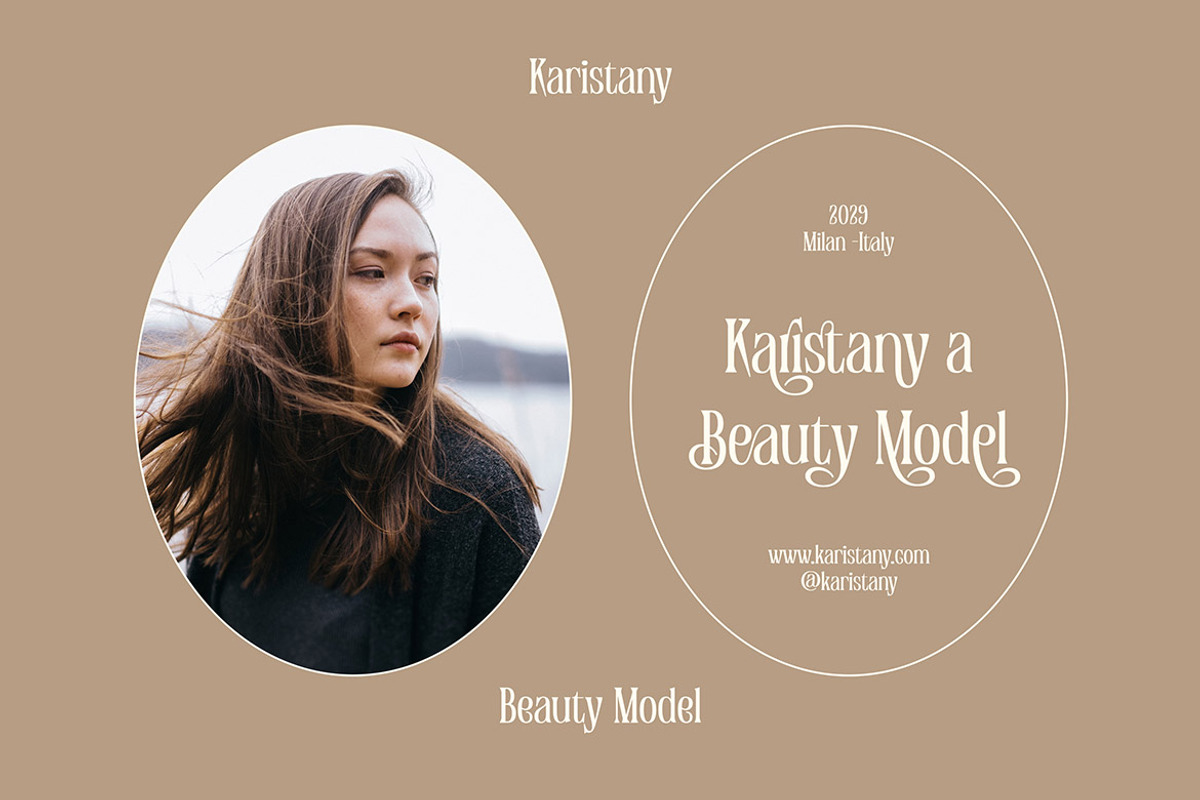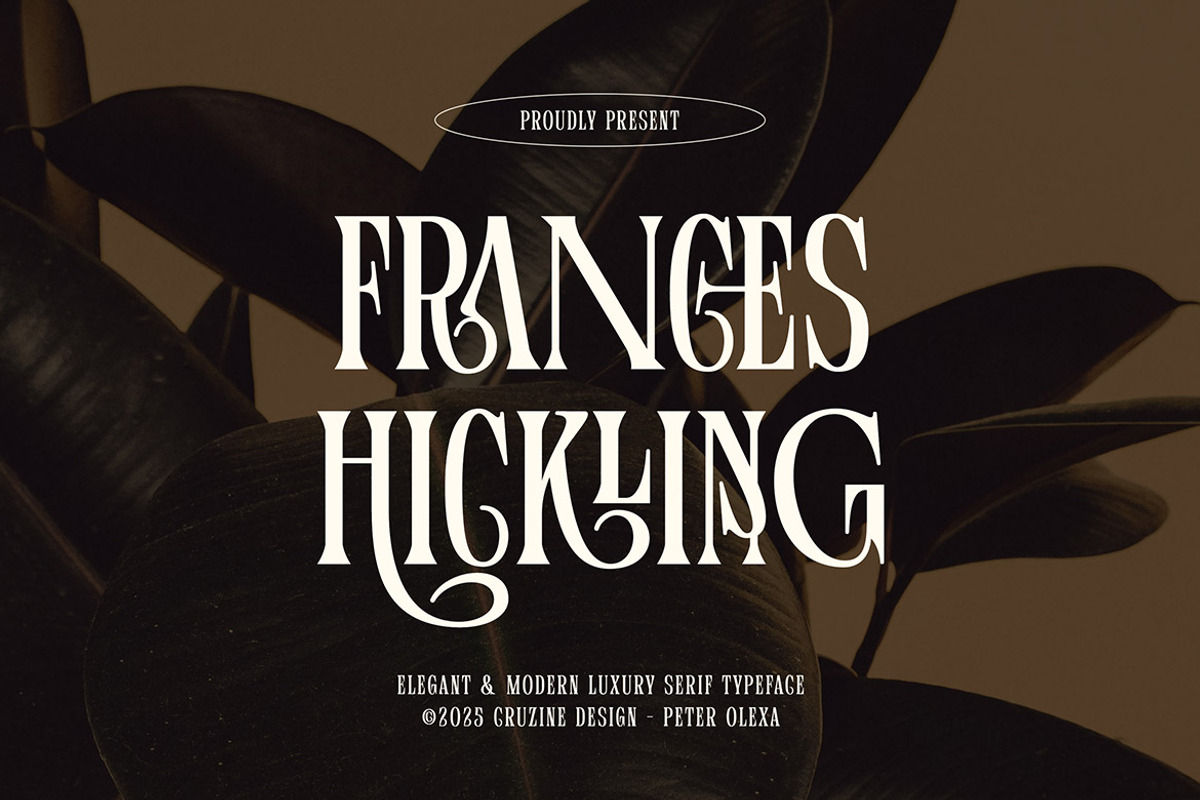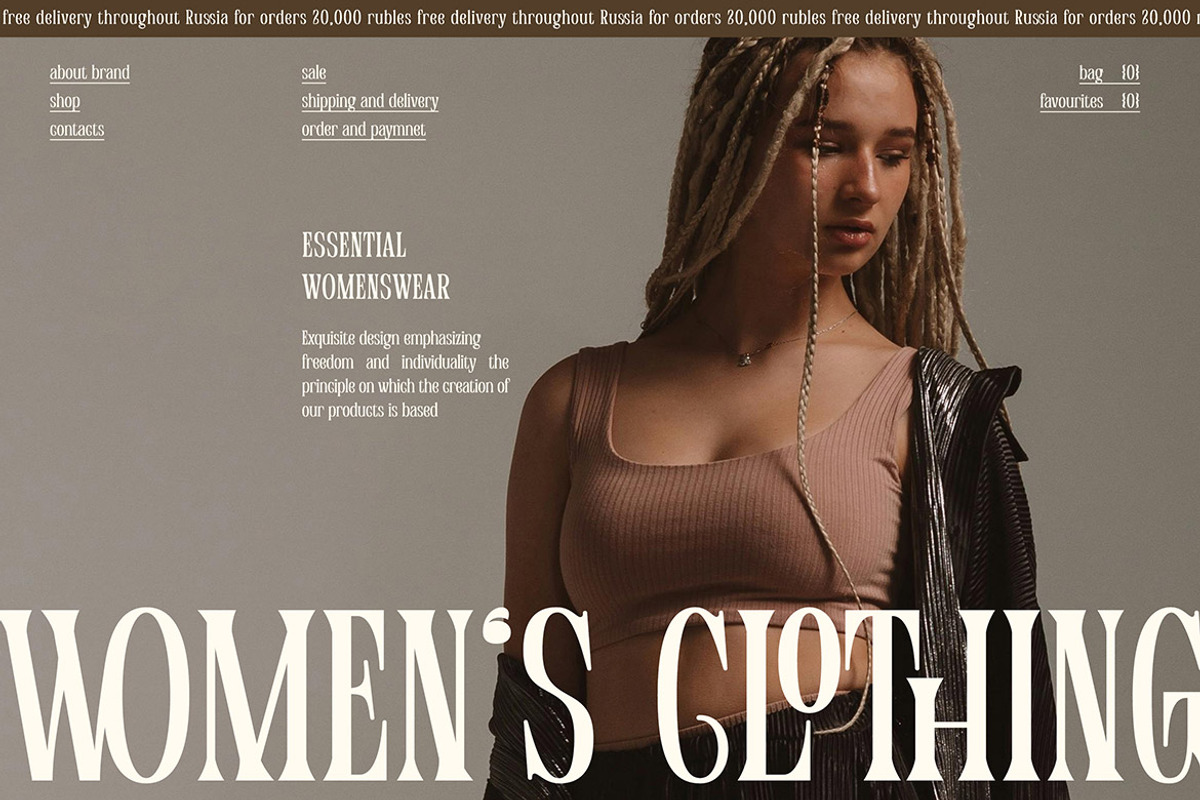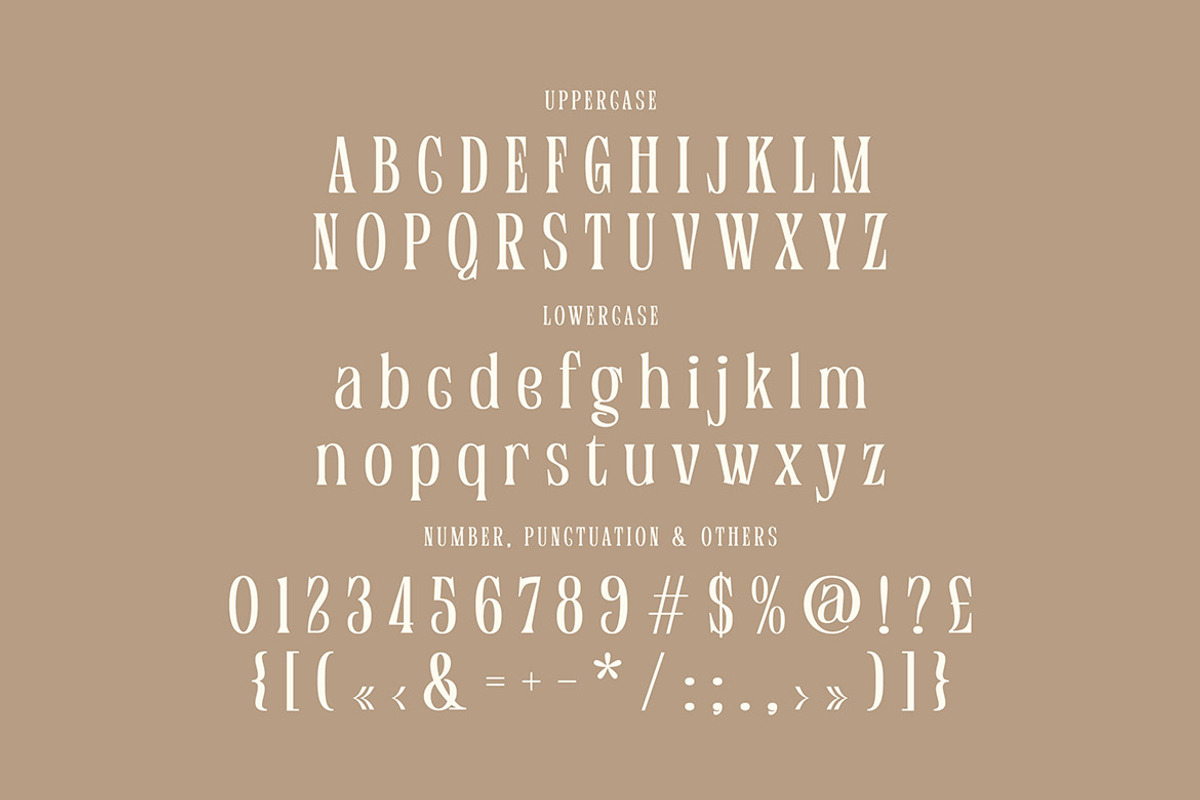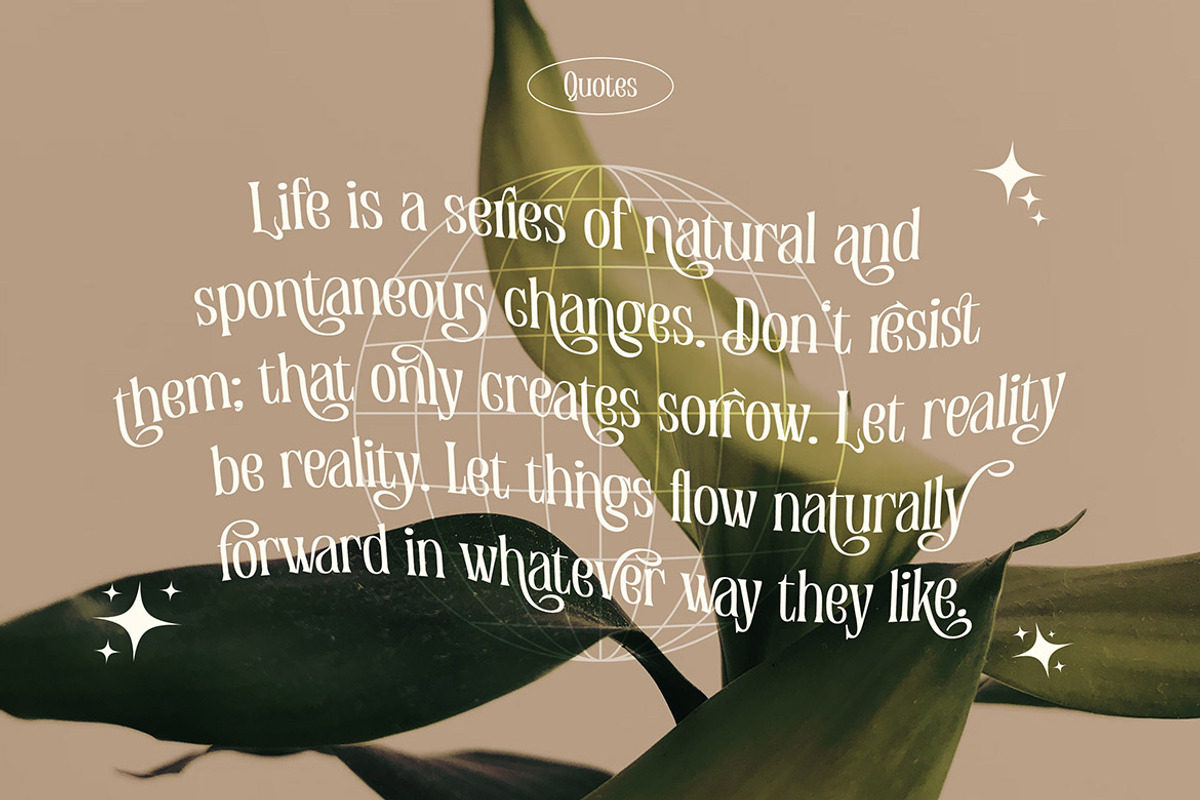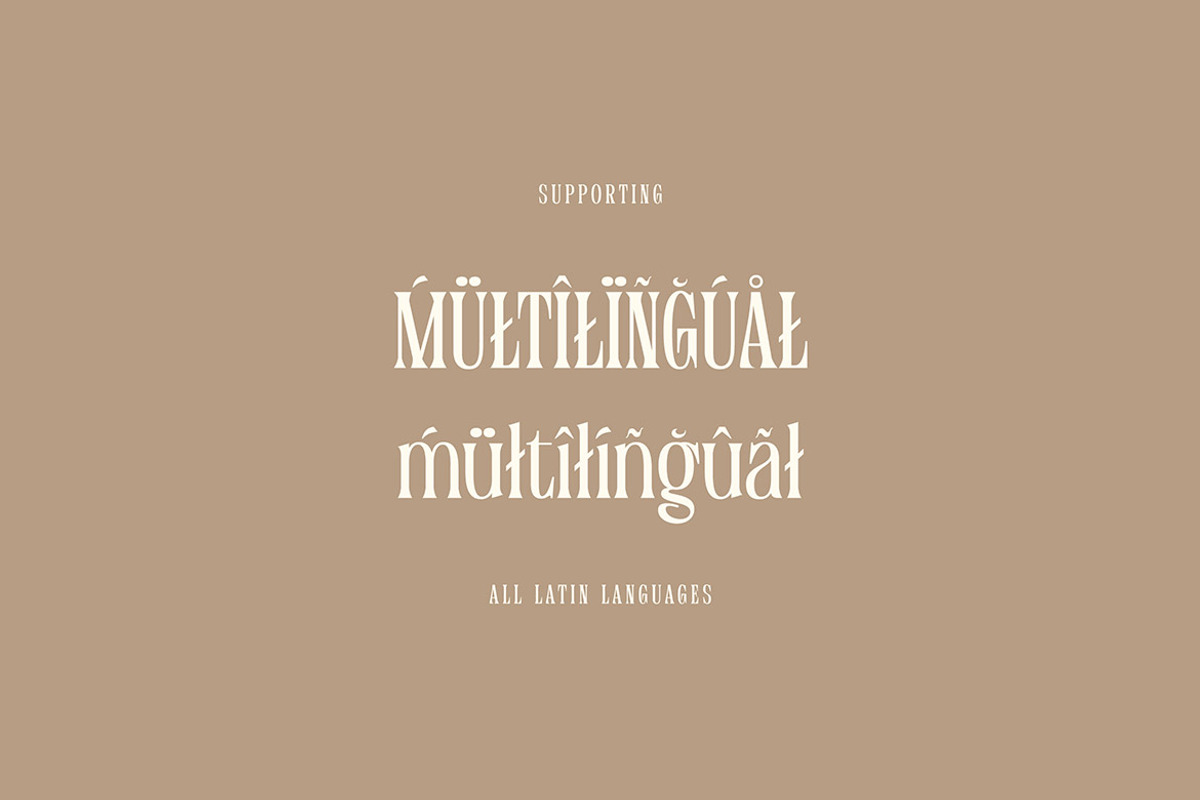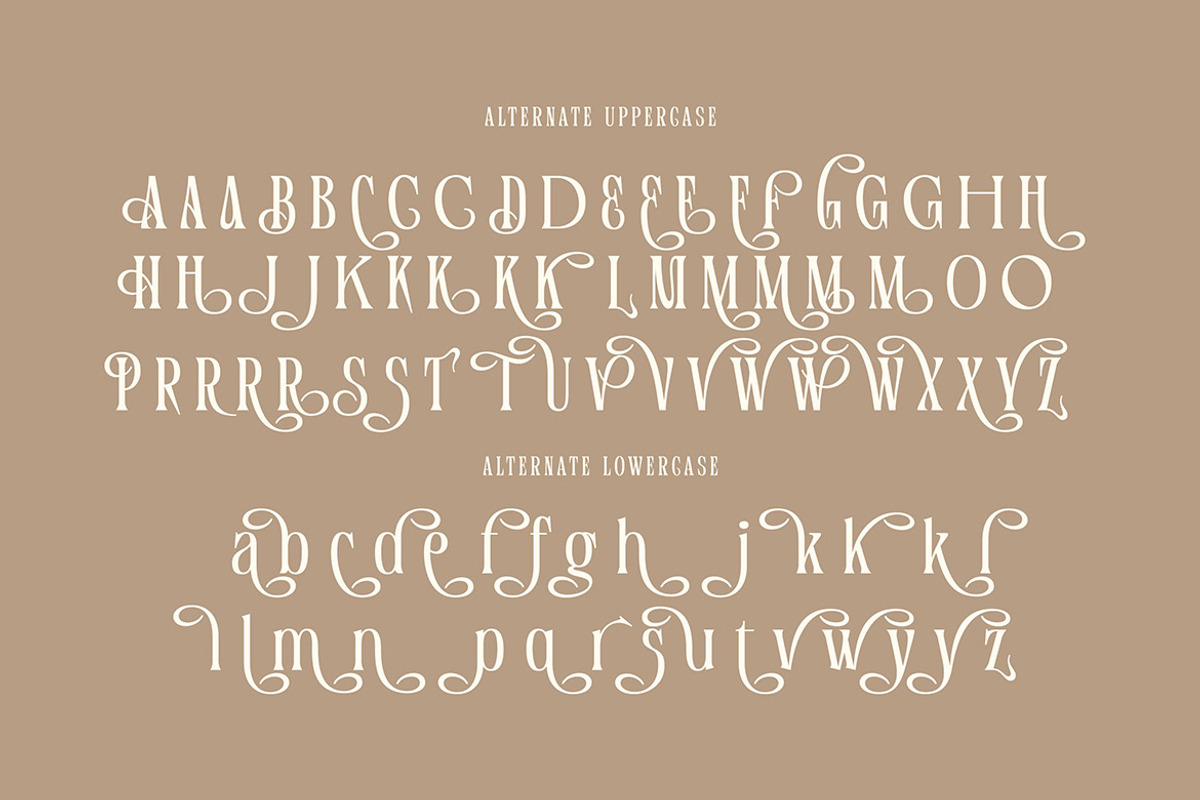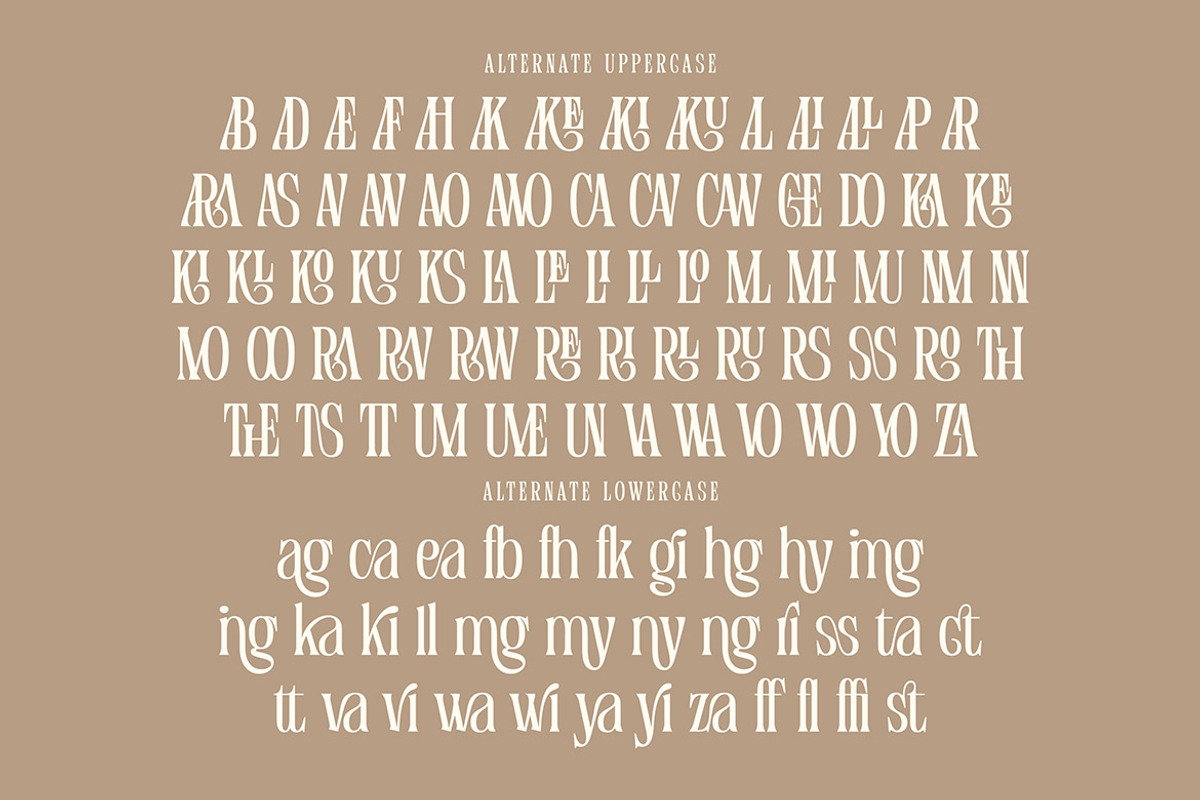
Frances Hickling
Trendy, elegant, luxury, creative, condnesed & modern style serif font for your new fancy projects. Stylish, romantic and classic style on Frances Hickling font will be great for any modern or classy branding project. Lot of alternates and ligatures will help you to create unique and original logo design or website header! Enjoy :)
Alternate characters & lot of ligatures
Great for modern branding projects!